Five Tips for Choosing the Best Webfonts
Web and print typography have a lot of obvious differences. Beyond resolution, variable medium sizes, user interface, and the fact that one medium reflects light while the other radiates it, the most frustrating historical difference has been the lack of fonts to choose from on the web side.
There are an estimated 150,000 fonts available to print designers, while Web designers have had to settle for a paltry five. All that has changed now with the ability to download webfonts you can use with any Web browser. Now there are close to 50,000 fonts available from a variety of sources, and the list just continues to grow. For practical information on how to use webfonts, read “What You Need to Know About Webfonts Part 1 and Part 2.
But don’t rush out to enjoy this new treasure trove quite yet. Choosing fonts for the Web is not quite the same as choosing them for print. You’ll have to consider a variety of criteria, some aesthetic, some practical. The five tips below will help you get there.
1. Choose for Styles and Weights
A typeface is a collection of fonts with different styles and weights. The default style of a typeface is generally referred to as the regular or roman font. However, you often need the bold font, italic (or oblique) font, and the bold italic font versions, too.
It’s best to choose a type family that includes bold and italic styles as well as regular. If your copy (the text on the page) needs to be bold or italicized, but your type family doesn’t provide specific bold or italic versions using @font-face, the browser will either display the text in the regular font or — worse yet — try to simulate the style by widening the regular font for bold or slanting it by about 12 degrees for italic. This never looks good. Fonts that haven’t been optimized by a person for screen readability tend to be uncomfortable to read.
In addition to the standard bold and italic styles, many typefaces include a variety of different weights and thicknesses that can greatly expand your typographic options:
- Weights and Thickness: Different darknesses of bold, often indicated with values 100 (lightest), 200, 300, 400 (regular or normal), 500, 700, and 900 (thickest). You may also see thin, extra light or ultra-light, light, normal or regular, medium, semi-bold or demi-bold, bold, extra-bold or ultra-bold, and black or heavy.
- Condensed: The typeface has been compressed horizontally, allowing the text to fit in a narrower space.
- Extended: The typeface is expanded horizontally. This added width generally gives the typeface a heavier, more solid appearance.
Although most designers try to avoid using “too many” fonts, a typeface with a variety of styles lets you easily add typographic variety without the visual clutter of a cacophony of different fonts.
2. Choose for Character Set
A font’s character set (or répertoire) is the list of glyphs included with the font file. We generally assume that a font contains A–Z, a–z, and 0–9, along with the other common characters you can easily access with the computer keyboard. This is all we need for most purposes, but if you’re creating a site with a lot of mathematical content or in a language other than English, make sure the font includes all of the glyphs you need to properly display the text.
Most Web Font Service Bureaus let you view a font’s character set before you license it. If the font is already installed on your machine, use the Mac’s Font Book (Preview > Repertoire) or Window’s Character Map utility.
Font Répertoire in Font Book:
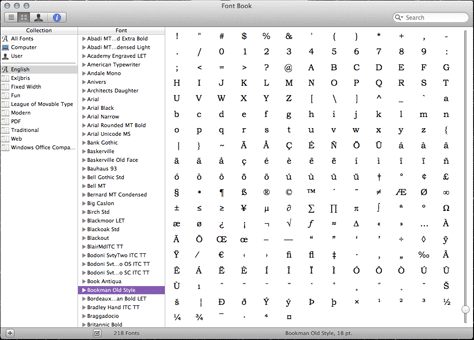
Many fonts include not only glyphs for English, but other Western languages, Asian languages, and more. If you’re not sure which languages a font supports, Font Book can come in handy again. Select the font you’re interested in and go to Preview > Show Font Info. It should list the languages the font supports.
Font Information in Font Book:
However, if you do not need other languages, having too large a répertoire means the font will have a lot of extra data, which equals larger files that take longer to download. In these cases, check the character set and then sub-set the font, removing unused glyphs to reduce the file size.
3. Choose for Optimization
Almost all of the fonts we use today were originally designed to be printed, not displayed on the screen. The obvious differences are that print uses reflected light and has a much higher resolution (usually 300 dpi) while screens generally project light and have a much lower resolution (72 to 96 ppi).
Fonts for print also have more exact typographic controls for kerning, where letters are spaced according to context provided by the letters around them. Precise kerning is still lacking in web typography.
However, rendering type on the screen goes far beyond resolution. Anti-aliasing is a process by which the edges of objects on the screen are slightly blurred, which creates the optical illusion that the edges are smoother and sharper. Anti-aliasing can depend on the computer operating system, the browser’s rendering engine, and the type designers themselves.
Fonts are rendered very differently by the Windows and Mac OSes. The Mac OS and iOS have unparalleled anti-aliasing technology called Core Text, which takes care of anti-aliasing consistently across all applications. Windows also includes an anti-aliasing technology called GDI ClearType. Unfortunately, it wasn’t on by default in earlier versions of Windows, and even then it only anti-aliases horizontally, not vertically, leaving the tops and bottoms of letters jagged.
On the left, the “m” does not have anti-aliasing, while the “m” on the right does:
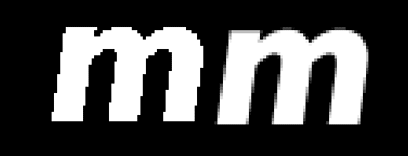
To be displayed as clearly as possible, fonts should be optimized for the screen, preferably by the type foundry that created the font. However many Web Font Service Bureaus include their own tricks to help their fonts render as clearly as possible.
The most noticeable problem with fonts that aren’t optimized for the screen are usually associated with display in Windows. A font that looks perfectly clear on a Mac may be almost illegible in Windows. Before you buy a font or use a Webfont Service Bureau, check to make sure the fonts have been optimized. Then test the fonts on both Macs and PCs before you design much, or you might get a nasty shock at launch when your client calls you screaming that they can’t read the text on their own website.
4. Choose for Legibility
Legibility is the ability to distinguish different characters at different sizes. Legibility for the screen is based partially on the font being optimized, but there are aspects of typefaces that no amount of optimization can offset. The size and shape of the individual glyphs — their serifs and strokes — has a lot to do with how easily you can recognize characters at a glance.
One important point about legibility, though: The tendency in Web design over the years has been to make text too small, which reduces legibility. This is brilliantly illustrated in an experiment by Information Architects, where they held up a book printed at 12pt type next to text display on the screen at 16px type size. The two samples looked the same because pixels and points are not the same. A 12px font is actually small for the screen. If you’re setting text this small to fit more “above the fold” when the page loads, stop it. People know how to scroll now, so you can set text at larger sizes and space out your content on the page.
Setting a well-optimized font at the right size can make otherwise hard-to-read text clear and crisp, but there are two other factors to consider when choosing fonts for screen legibility:
- Consistent strokes: Consistent stroke thicknesses tend to be easier to discern as the font size is reduced.
- Either no serifs or strong serifs: Weak serifs that go to fine points don’t reduce well and tend to look fuzzy at smaller sizes. Fonts without serifs or that have very strong thick serifs generally work better.
Fonts with consistent stokes and either no serifs or strong serifs will be more legible on the screen:
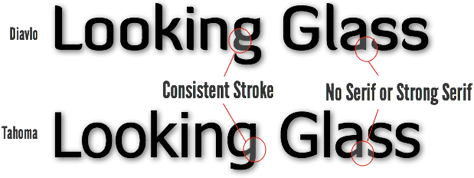
Both of the above factors have led to the recent popularity of slab-serif fonts on the Web. Slab-serifs generally have consistently thick strokes and, by definition, strong squared serifs that reduce well in size. Museo Slab is an excellent example of the species:
5. Choose for Readability
While the terms “legibility” and “readability” are often confused or used synonymously, they are not the same. Whereas legibility is the ability to quickly recognize different glyphs, readability is the ability to read text over long stretches with minimal eye fatigue. It’s like the difference between sprinting and long-distance running.
Readability relies to a certain extent on the legibility of the font — if you have a hard time discerning each letter, you will obviously have a harder time reading — as well as other typographic factors, such as color, size, and spacing. Look for these characteristics in your search for a readable font:
- Letter spacing: This space is set as part of the font by the type designer. In print, you can adjust spaces between letter combinations by kerning. However, Web designers are limited to a more crude tracking control, using the CSS letter-space property. This puts the same amount of space between each glyph, irrespective of the actual characters.
- Counter width: This is the open, negative space within certain characters like d or p. Wider counter widths are generally associated with increased readability for a font.
- X-height: This is the height of the font from its baseline to the mean line, generally the height of the lowercase x. Although there’s no empirical evidence, it’s a generally accepted design rule that taller x-heights versus capital letter height increase the readability of a font.
While each of these attributes is important to consider, there is a Goldilocks story here. There are some who say, for example, that taller x-heights make for more legible fonts, but this is only true up to a point. What you’re looking for is not an exaggeration of any one of these attributes, but the best balance of all of them. Helvetica is a very popular font, and this didn’t happen by chance. Not only is it highly legible (consistent strokes with no serifs) but it also has been carefully crafted with a keen insight into the balance between letter spacing, counter width, letter width, and x-height. Not too little, but also not too much.
Bonus Tip: Choose for Voice
So why not always use Helvetica or its cheaper clone, Arial? Imagine a world where everyone had a pitch-perfect voice, like, say, Judy Garland. Aren’t we much better off living in a world where Judy Garland’s voice is joined by those of Johnny Cash, Bob Dylan, Amy Winehouse, and Lady Gaga? I think so.
Remember:
Typography :: Text
Voice :: Speech
I know this article’s title promises only five tips, but I want to give you extra advice that can’t be as easily qualified or quantified as the previous tips. When you choose a webfont, choose one with a voice that’s in synch with your design’s message. I know that sounds simple and obvious, but it’s not. Readability, legibility, optimization, character set, and weight and thickness variety are all important, but if you rely on these criteria alone, you may end up with a typeface that doesn’t match your message.
Choose the font to reflect the voice you want:
And don’t shy away from decorative fonts for titles and headers if they reflect the mood you’re trying to capture. Web designers have been playing it safe for too long, and now it’s time to make your typographic voices heard. Here are some ideas to explore:
- Choose a time period: Typefaces that are associated with a particular era or historical event, such as the Old West, the Renaissance, or the swinging ’60s.
- Choose a place or culture: Typefaces that are associated with a particular country or cultural heritage; for example, fonts based on Asian and Hebraic characters or typefaces closely associated with the Paris Metro and London Underground.
- Choose an artistic style: Many artistic styles have inspired typefaces that are associated with them, such as Bauhaus and Art Deco.
- Choose a texture: Typefaces that look rough, distressed, or are made up of brush strokes are just a few ways to add texture. Obviously, the more texture, the less suitable these fonts are for body copy.
- Choose a mixture of voices: Once you become more comfortable with Web typography, mix typographic voices together.